I don’t know if my opinion on the topic is widely accepted, but I get the feeling that titling and display fonts are the ones that really gained in quality over time, thanks to the possibility offered by digital techniques and evolution, such as alternate glyphs. Here is a selection of recent and cool display fonts.
1. Amsi Pro
Amsi Pro font has been designed to be equipped with three different widths; Normal, Narrow and Condensed, addition to expanding weights to support various usabilities ranging from Thin, XLight, Light, Regular, SemiBold, Bold, Black and Heavy. Get more info here.
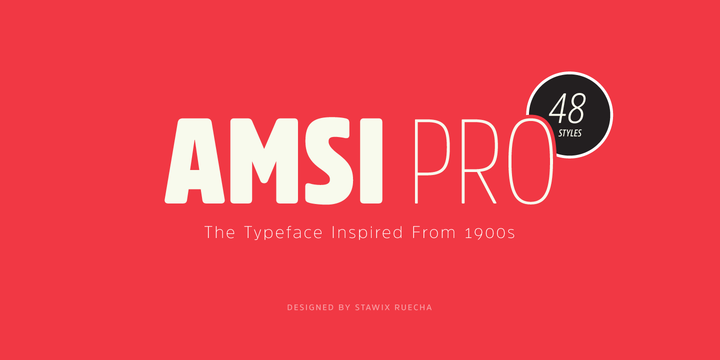
2. Selfie
Selfie is a connected sans serif based on vintage signage scripts seen at Galerías in Buenos Aires. Get more info here.
3. Nexa Rust
Nexa Rust is a multifaceted font system consisting of font sub-families Sans, Slab, Script, Handmade and Extras. Each of these sub-families contains a number of font weights which have a characteristic warm, rough look and display a few degrees of saturation. Get more info here.
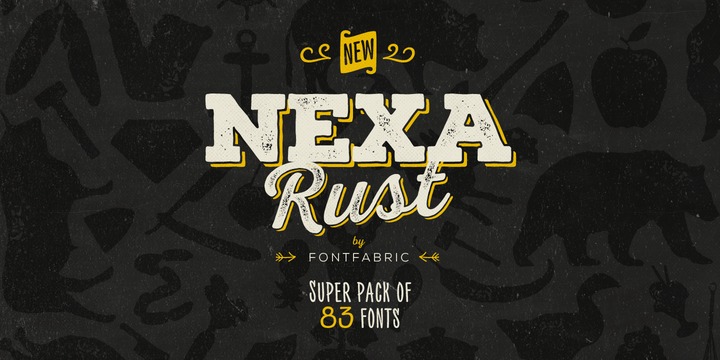
4. Hollie script pro
Hollie script font is 100% based on the brush traces that has 2100 glyphs, contextual ligatures from two to four characters and alternates for each ligature.
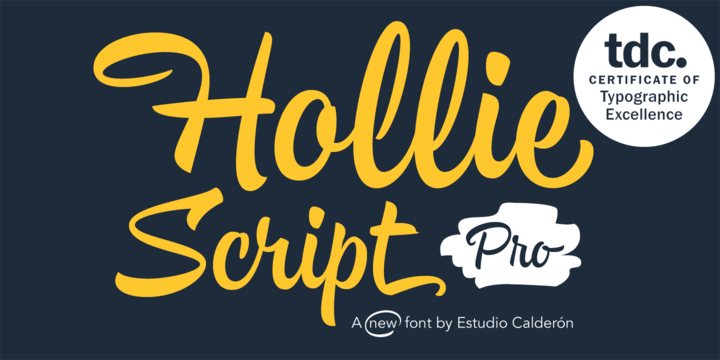
5. Lulo Clean
Lulo Clean is friendly, retro, and amazingly 3-dimensional with endless effects which can be created by adding different colors to each of the 5 stackable layers. For more info, click here.
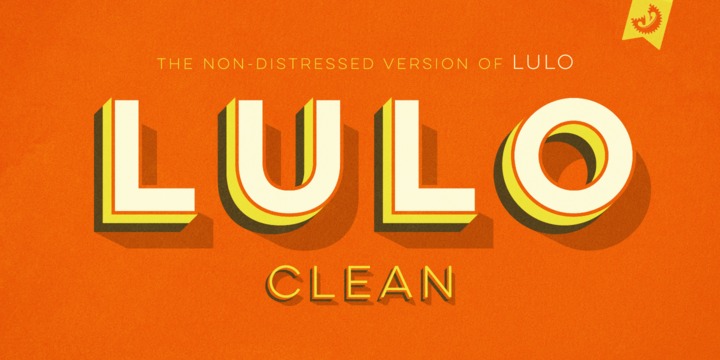
6. Eveleth
Eveleth is a premium high-resolution letterpress font family with exceptional realism and vintage charm that features 3 different sub-families each with its own unique printed texture. Get detail info by clicking here.
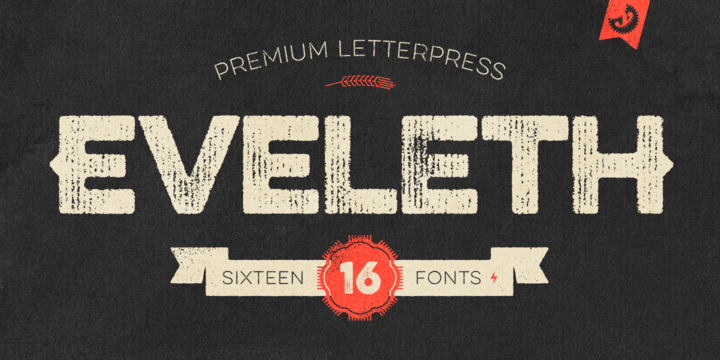
7. Funkydori
Funkydori fonts can be further enhanced with extravagant swash capitals, alternates, and endings along with ornaments and tile-able patterns.
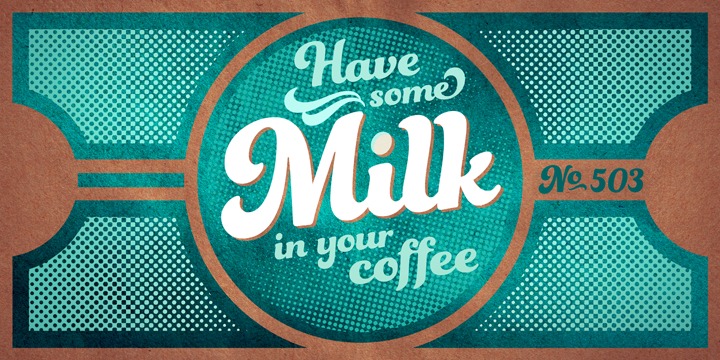
8. Acta Display
Acta family is a clean and fresh type system, while enough conservative for the newspaper setting. The complete Acta Type System contains Acta and Acta Display both with six weights with matching italics. Get more info here.
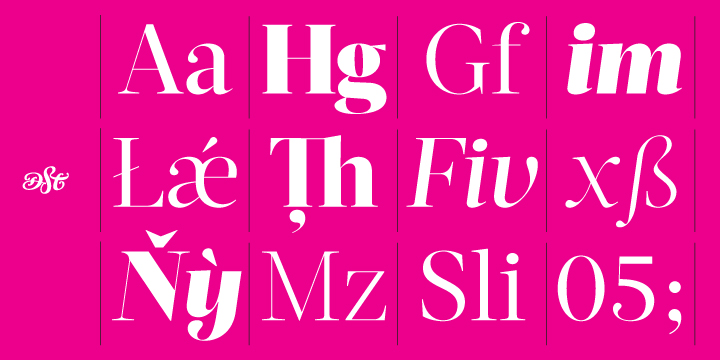
9. FF Tisa Sans
FF Tisa Sans provides advanced typographical support with features such as ligatures, small capitals, alternate characters, case-sensitive forms, fractions, and super- and subscript characters.
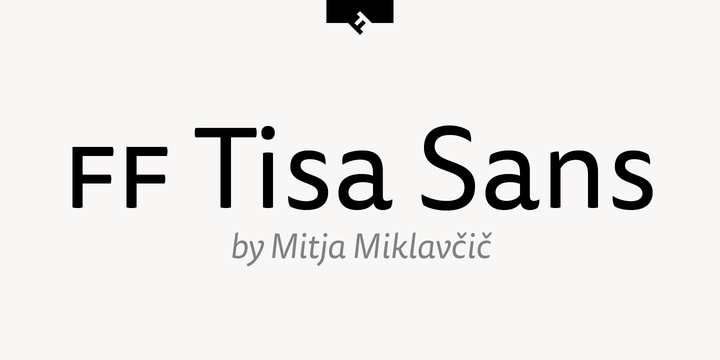
10. Brush Up
Brush Up is the cool hand-painted typeface that is swiftly painted on paper and carefully translated into a font. It brings 3 glyphs for each letter and 2 for each number, plus variations for some punctuation marks. Get more info here.